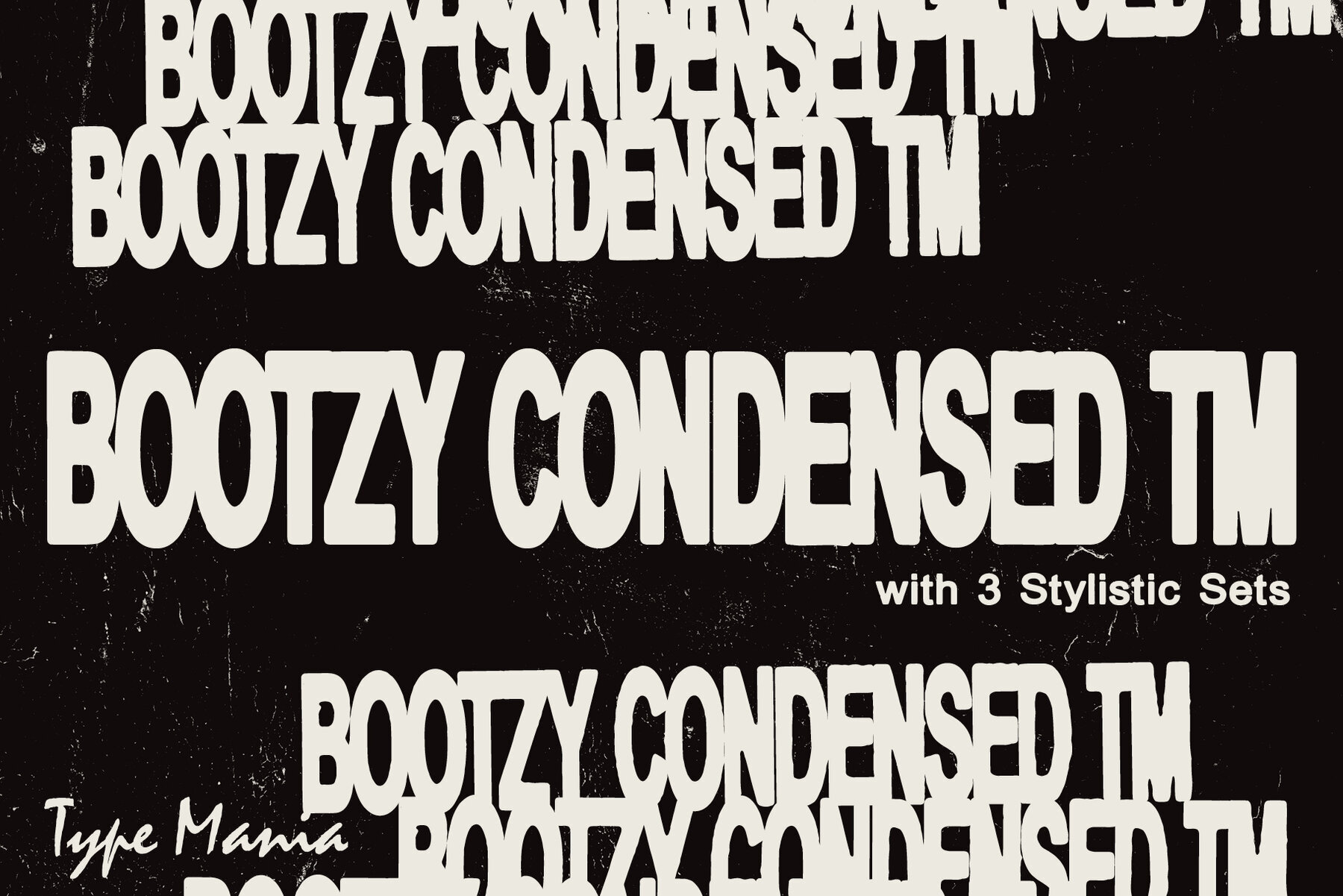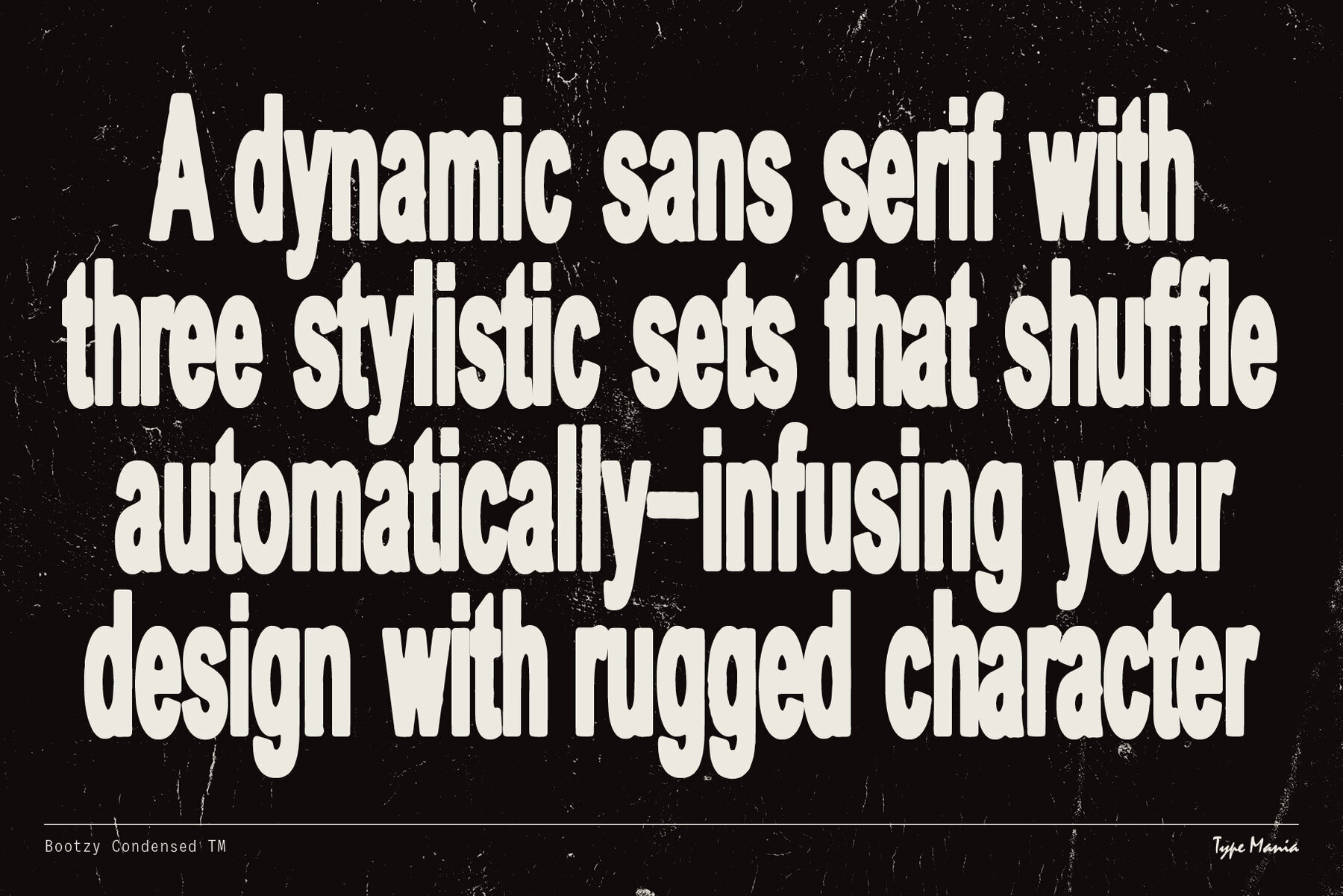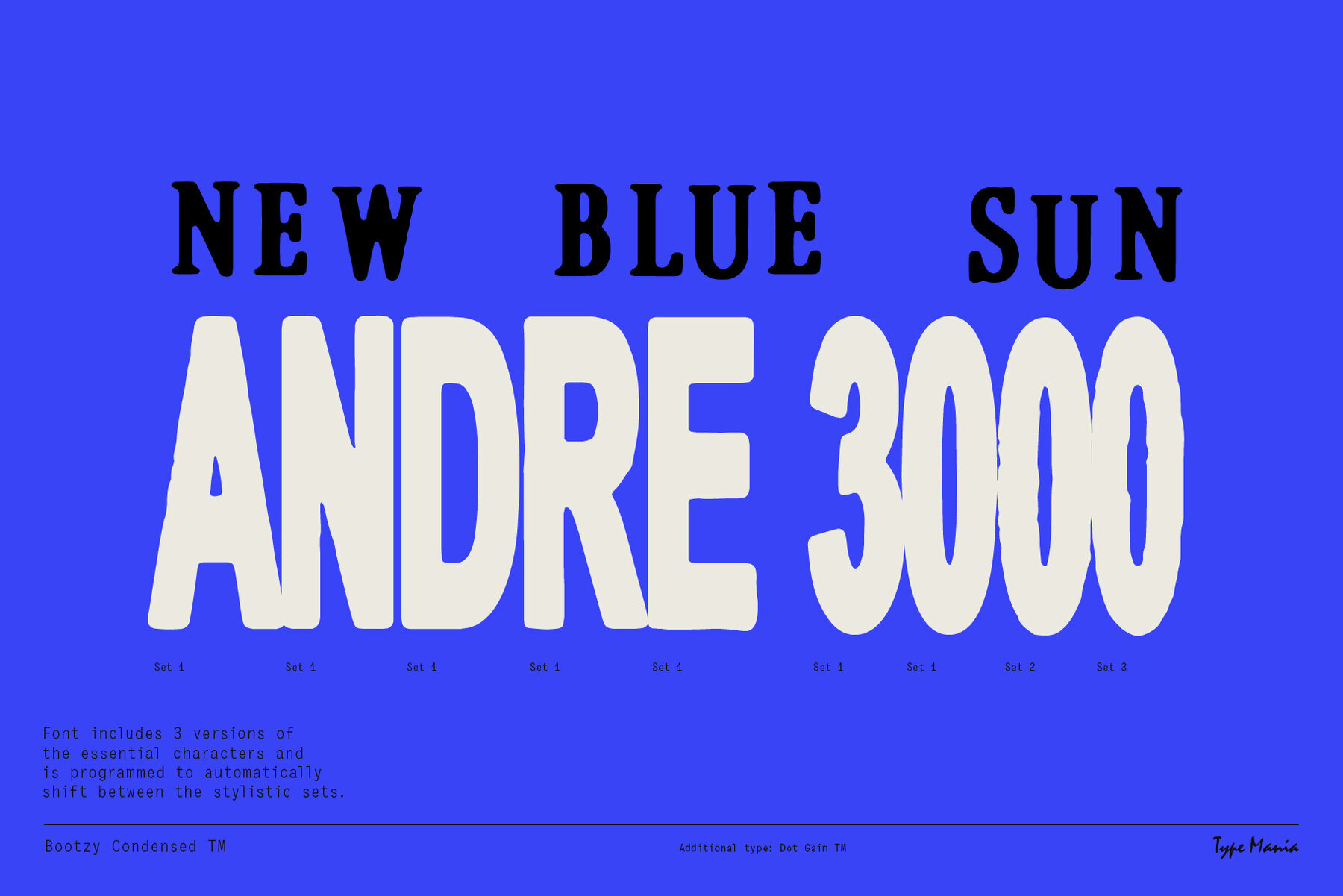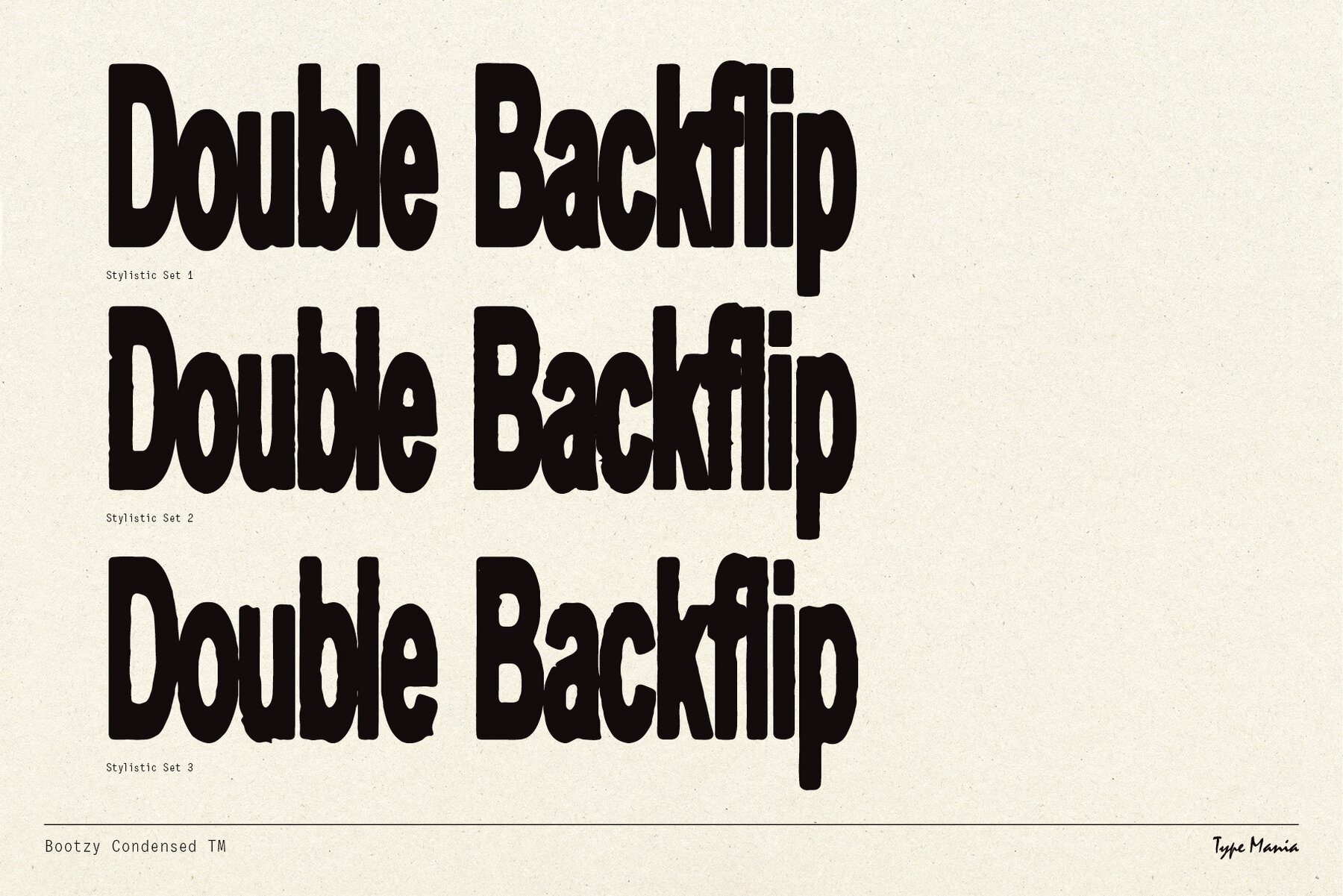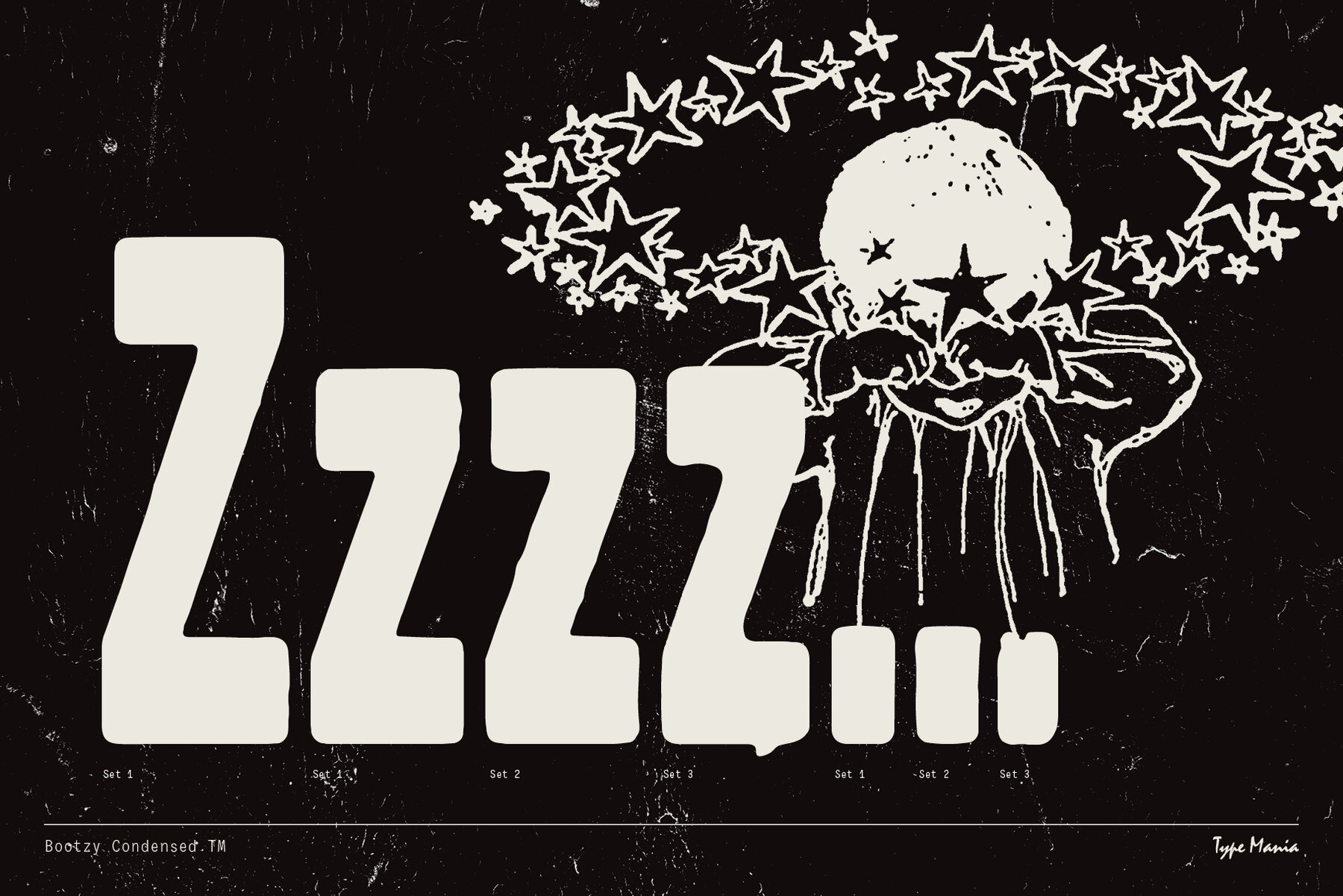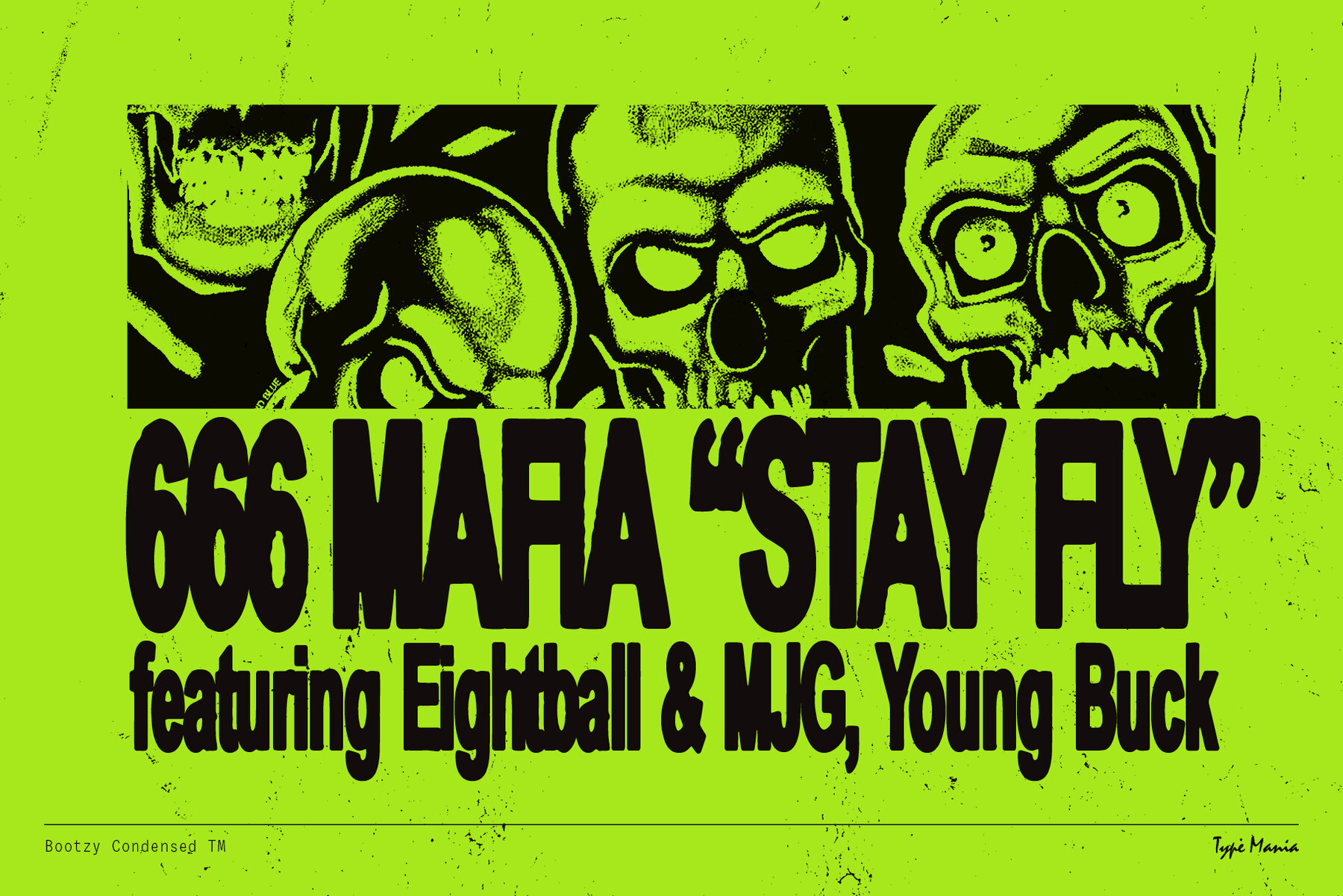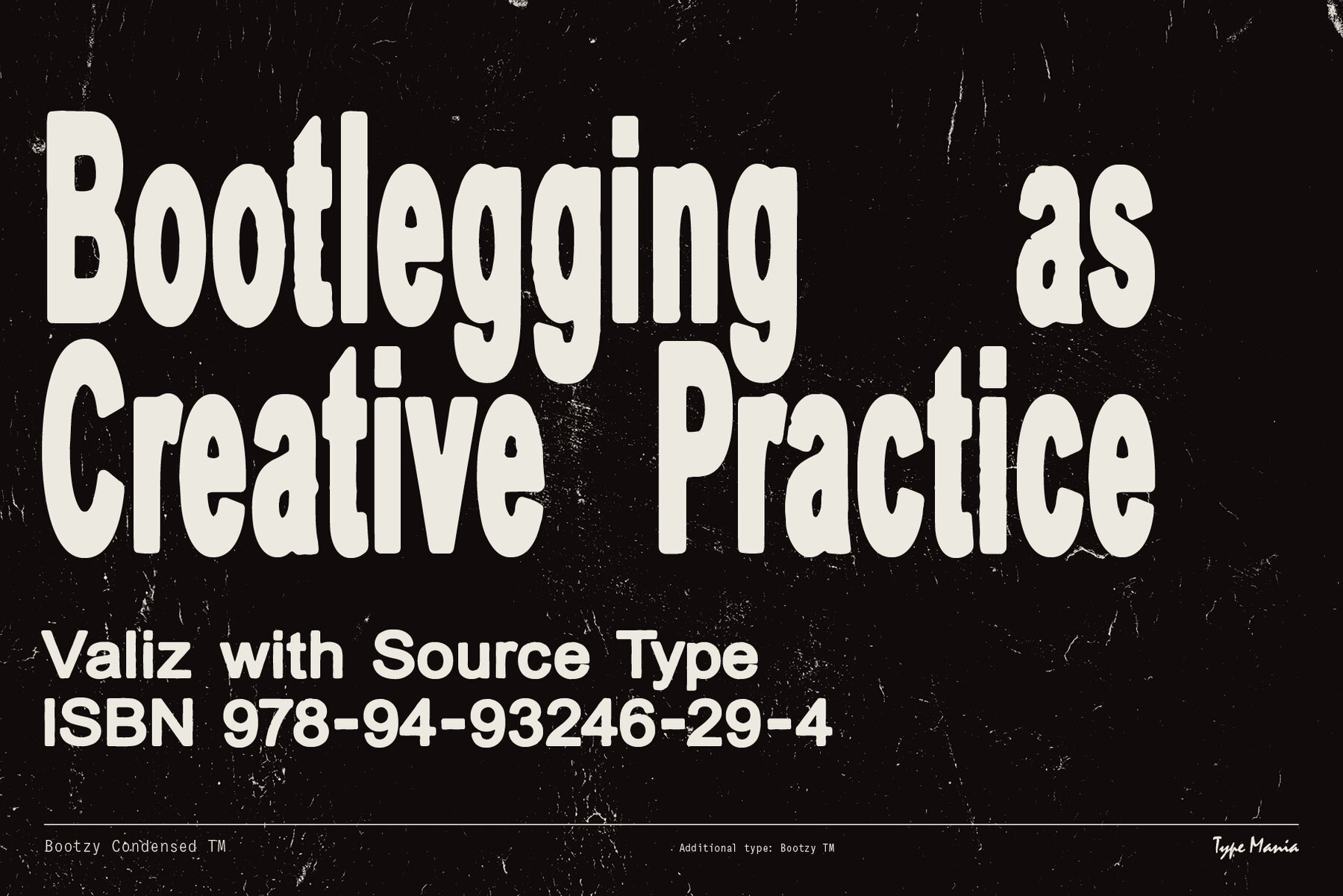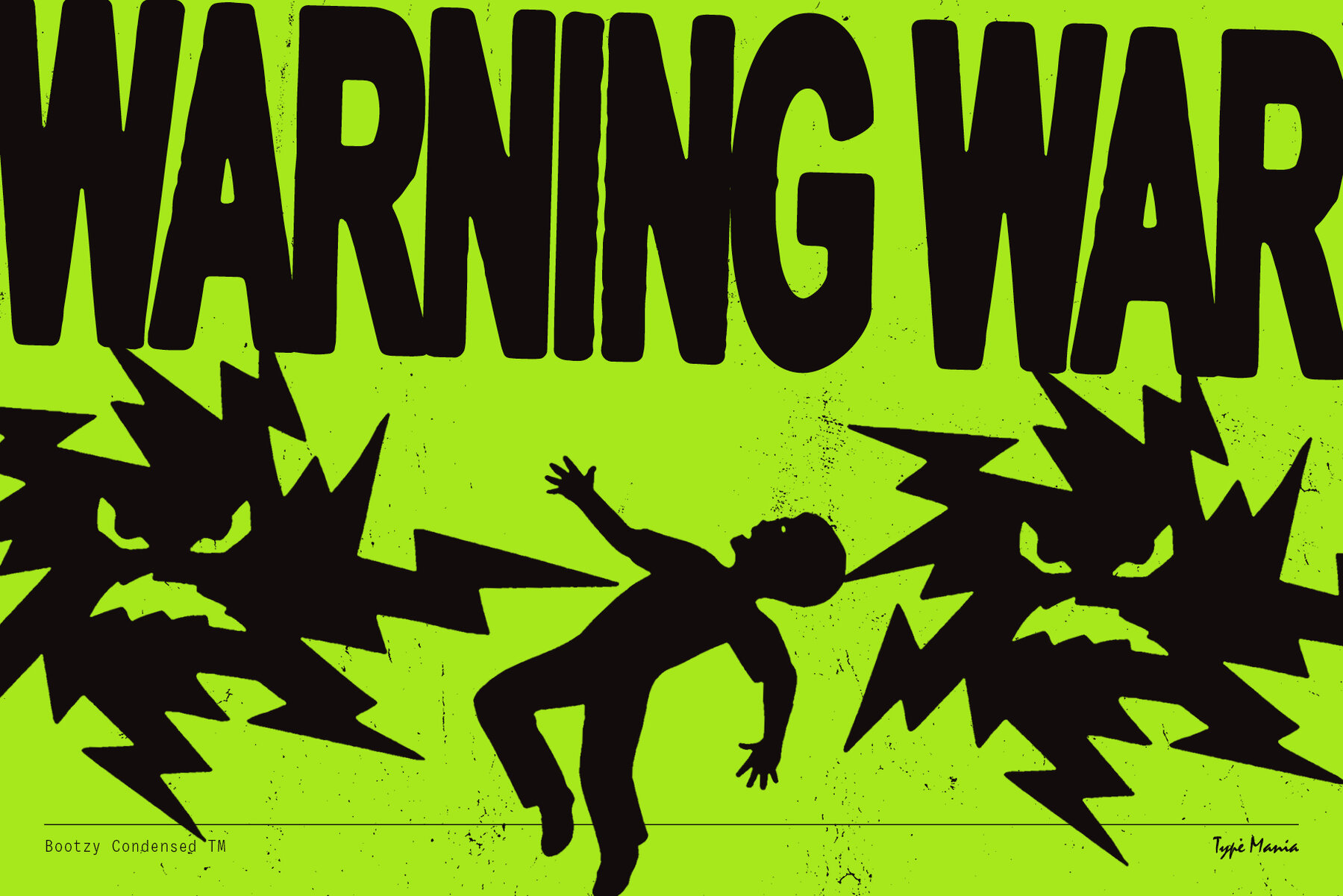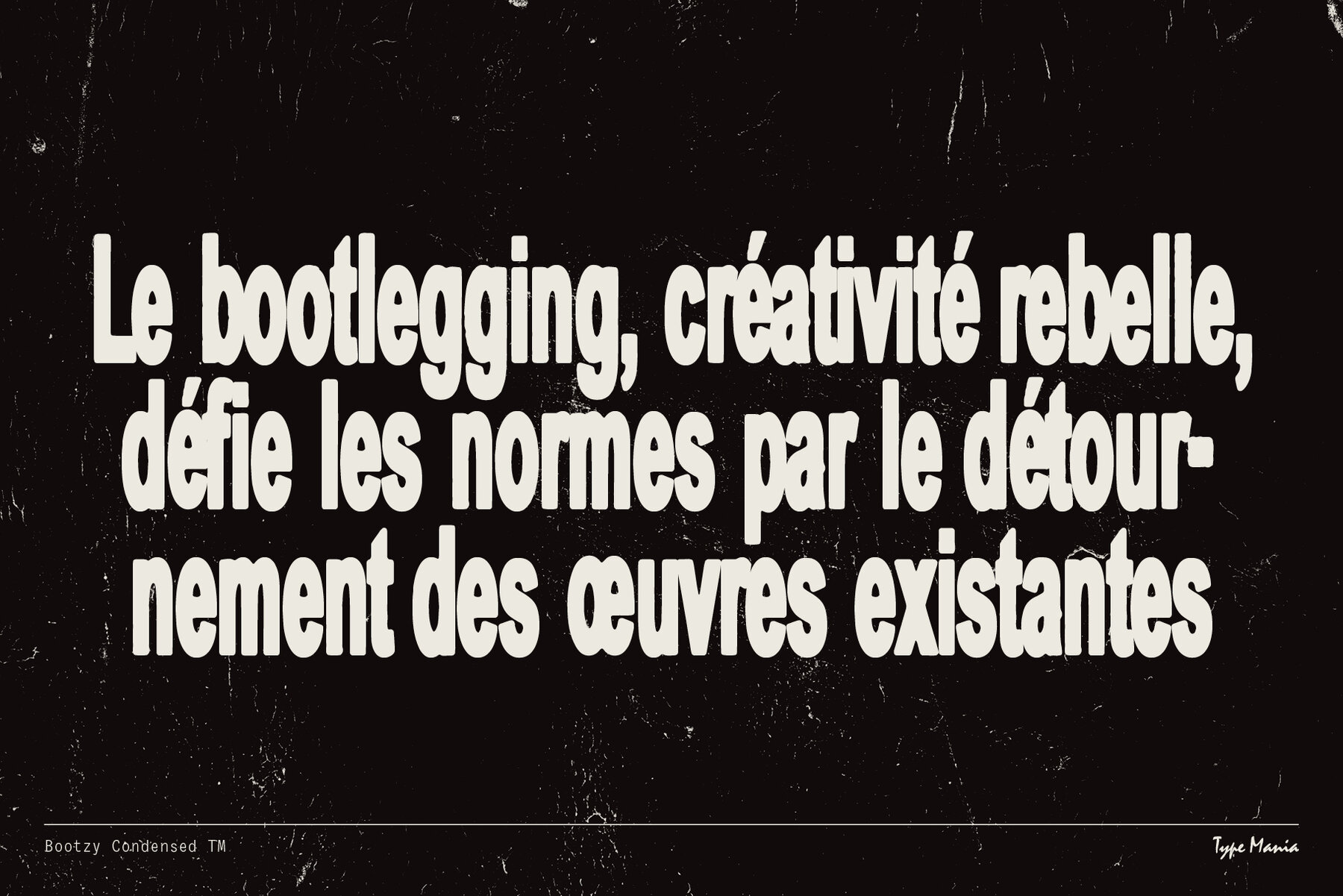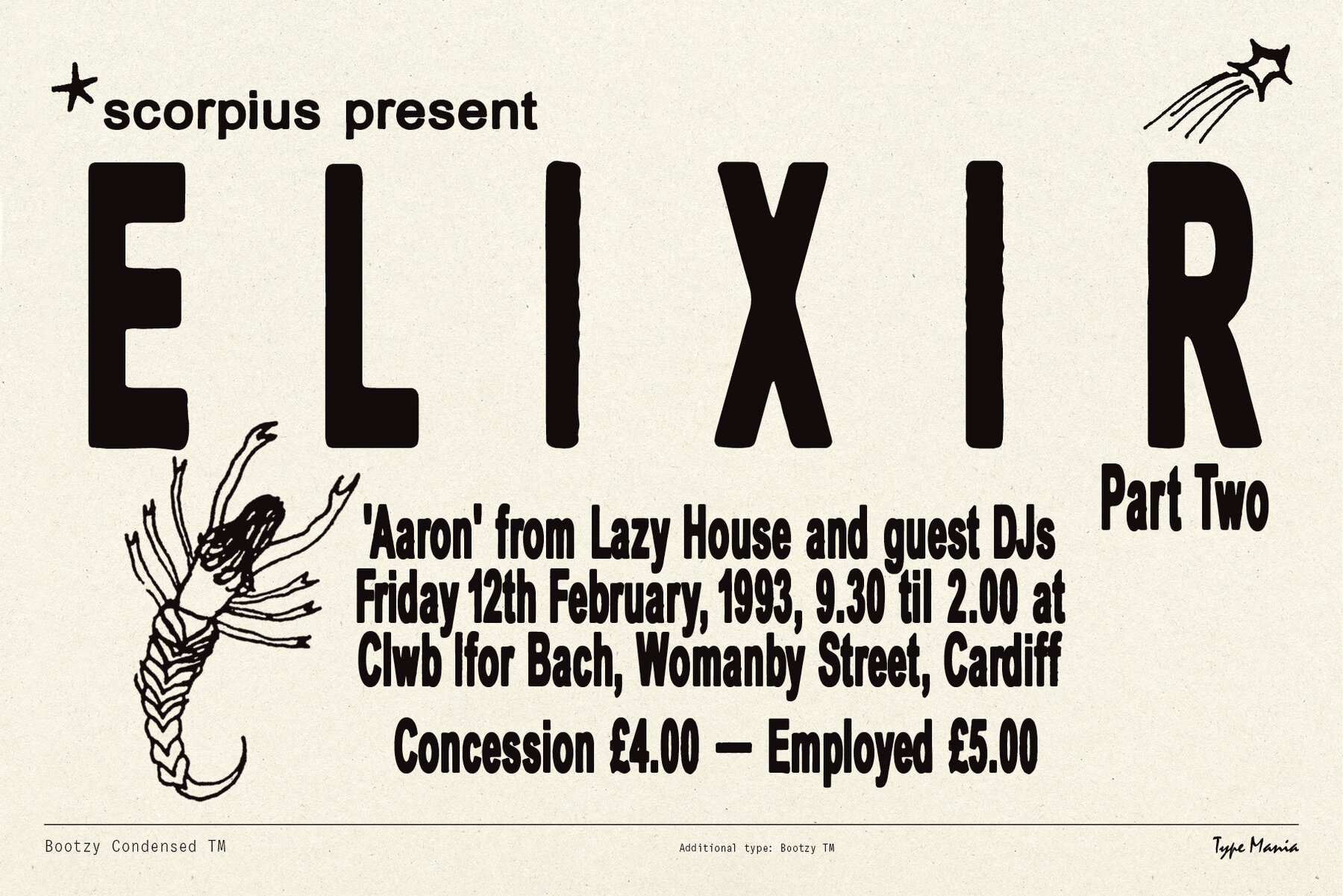
Bootzy Condensed TM Font
Bootzy Condensed TM Regular
Introducing Bootzy Condensed TM, a rugged display sans serif born from and for the creative underground. Inspired by the DIY ethos of bootlegging, this font is perfect for flyers, zines, and rebellious expressions all over. OpenType features